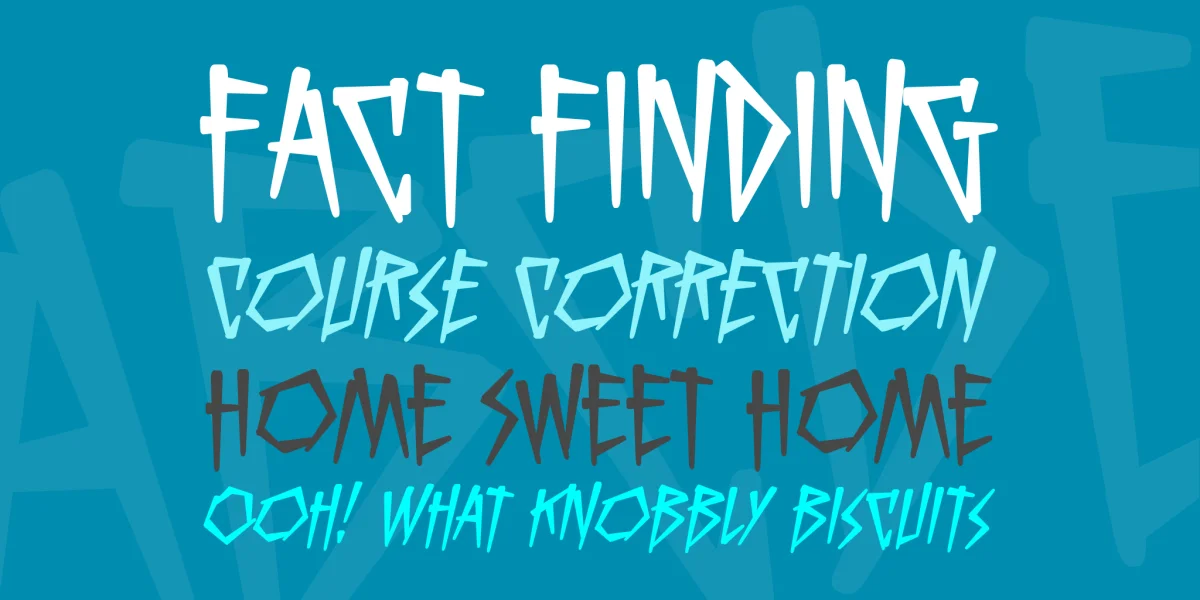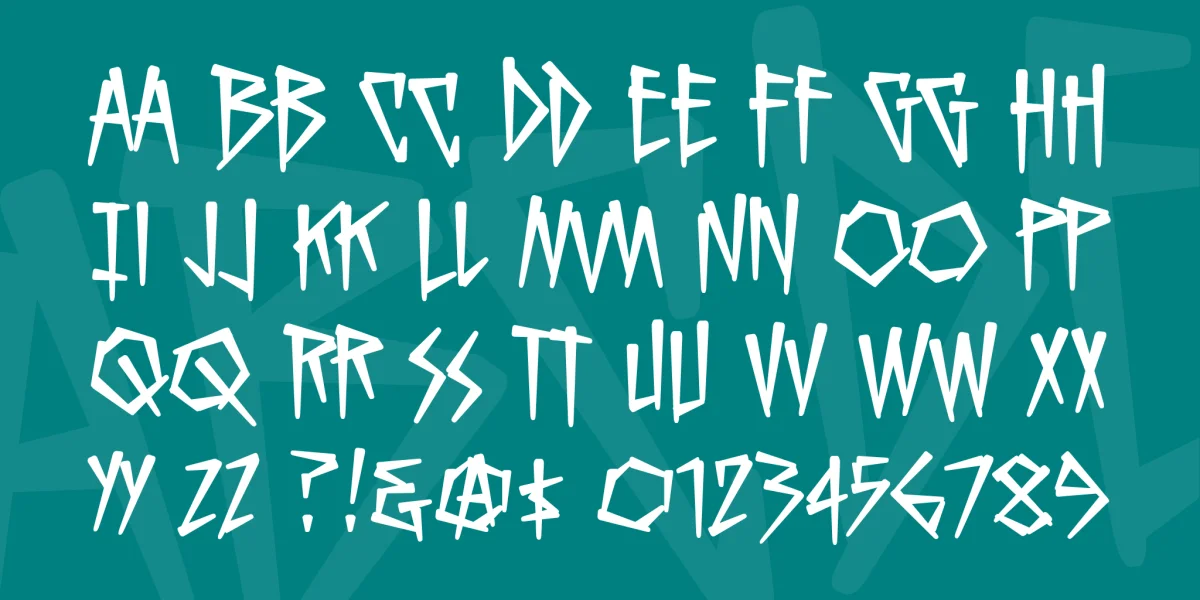
KILLCRAZY is a narrow-stroke sound effects font with a big impact! Designed for explosions and gunshots (and all around killcrazy rampge action!), it comes with Regular and Italic. The upper and lowercase keys are alternates for a more hand-lettered vibe.